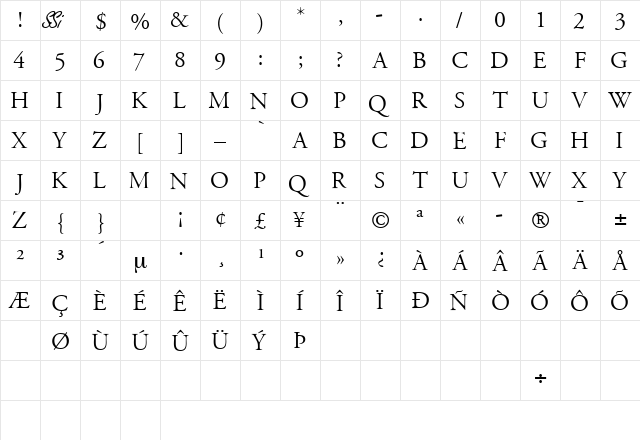
GaramondTitlingCapsSSK Regular
Design Context for GaramondTitlingCapsSSK Typeface
GaramondTitlingCapsSSK takes a measured approach to typography — its balanced proportions and neutral character make it a reliable workhorse for both digital and print work.